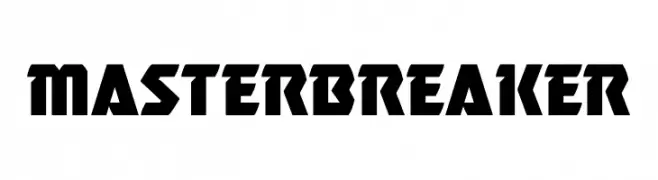
A bold, geometric font with angular shapes and uniform thickness.
A bold, geometric font with a futuristic and industrial style.
A bold, 3D geometric font with a futuristic style.
A bold, 3D italic font with a futuristic and dynamic style.
A bold, condensed font with sharp angles and a modern, assertive style.
A bold, condensed, and italicized font with a modern, dynamic style.
A bold, condensed, and italicized font with a dynamic and angular style.
A bold, geometric font with a futuristic and impactful style.
A bold, geometric font with angular shapes and expanded width, perfect for impactful designs.
A bold, expanded italic font with a modern, dynamic style.